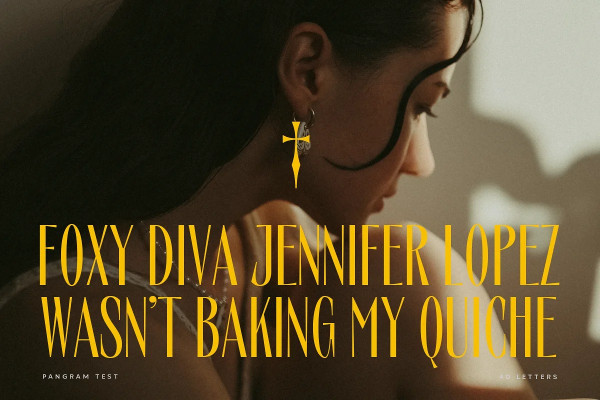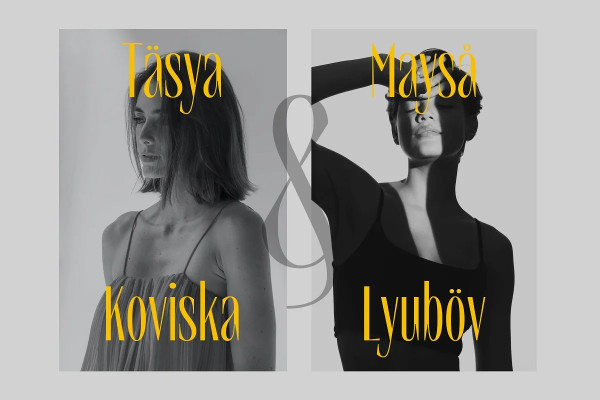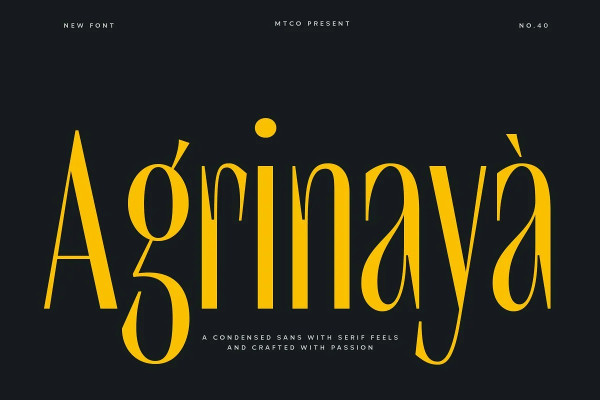
MTC Agrinaya Font
MTC Agrinaya Font is a condensed display font with high contrast and feels like a serif style to make it more stylish and modern, this font is made for logotypes, branding, editorial designs, and more.